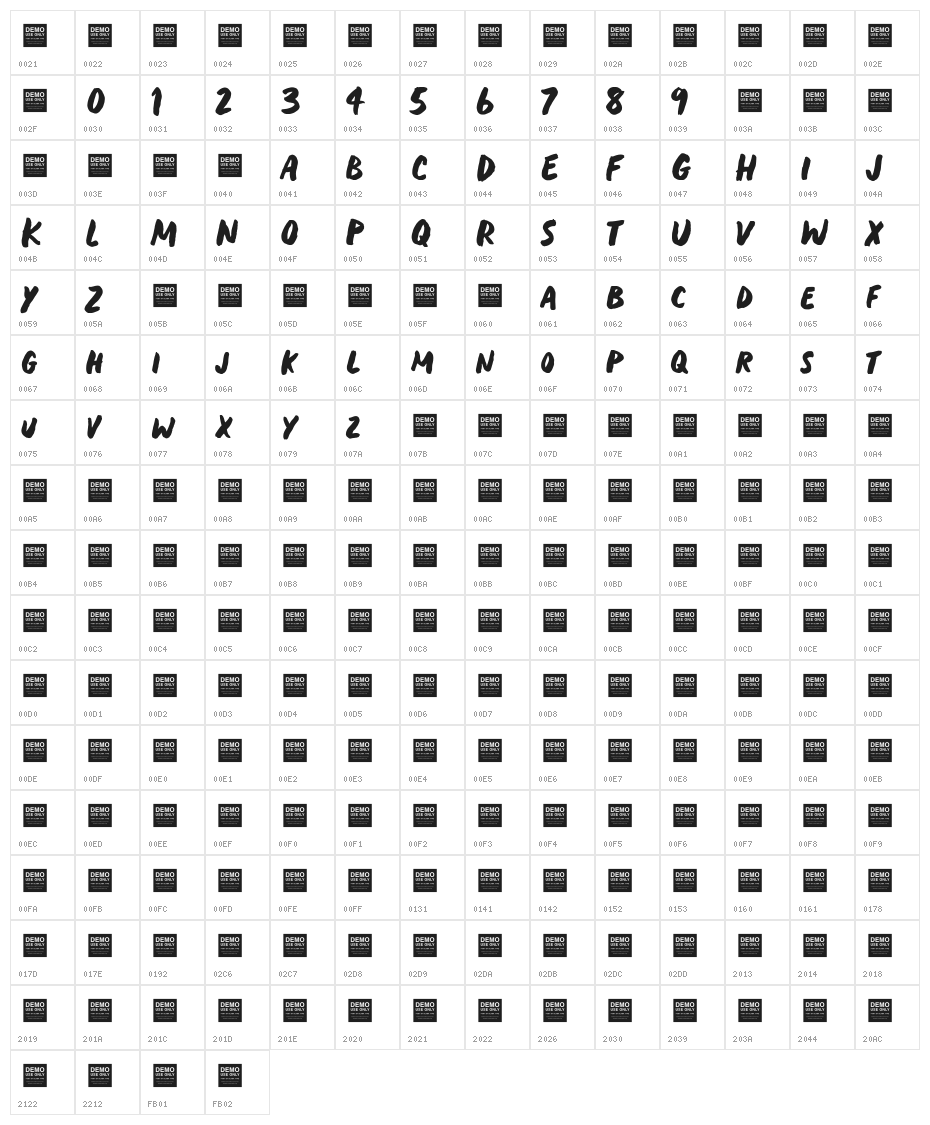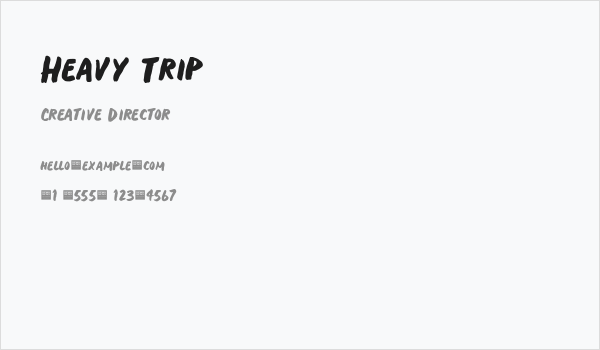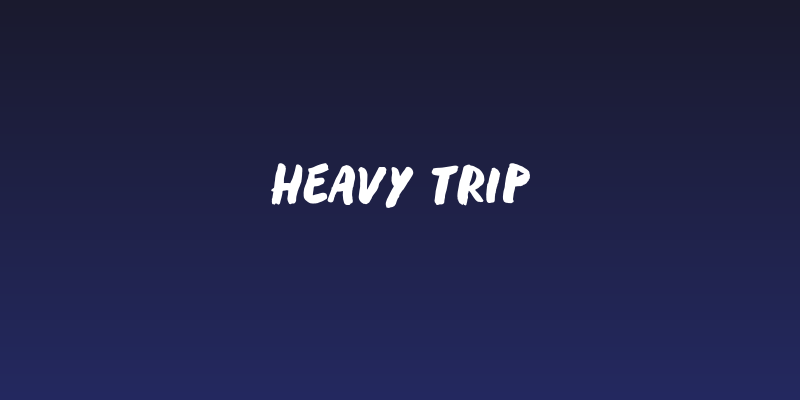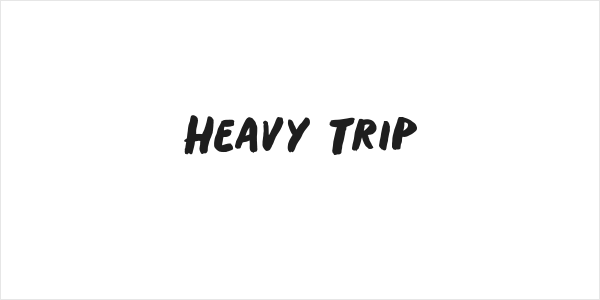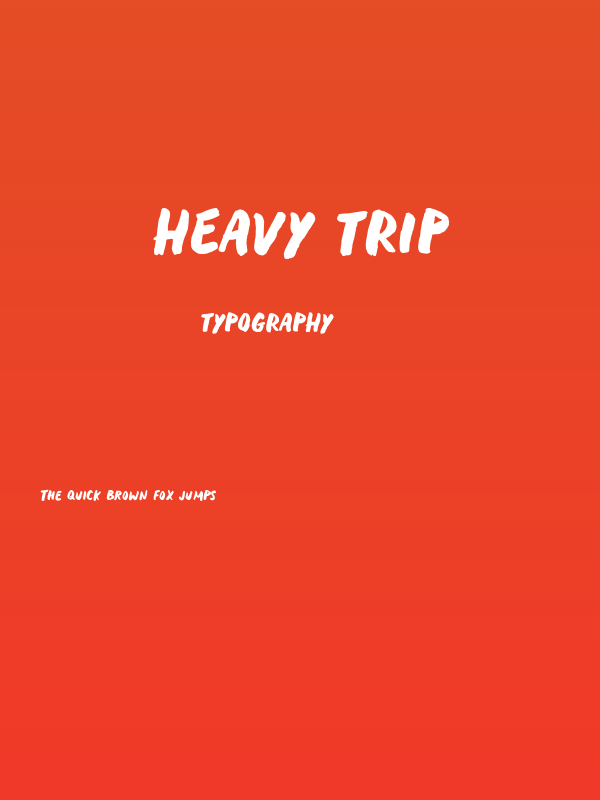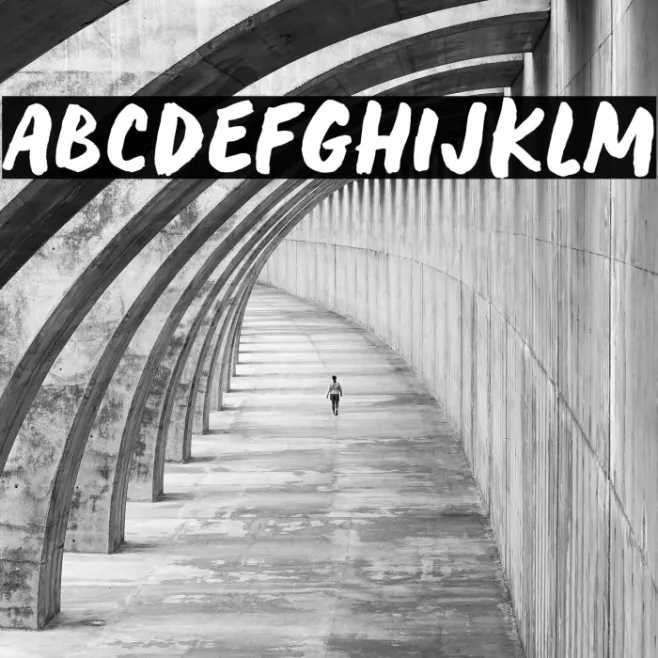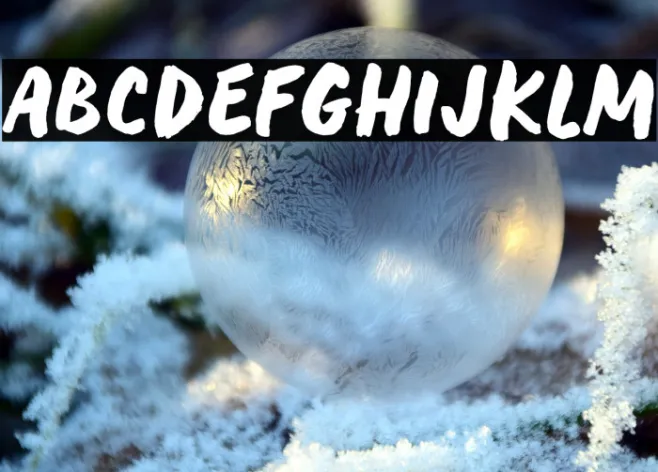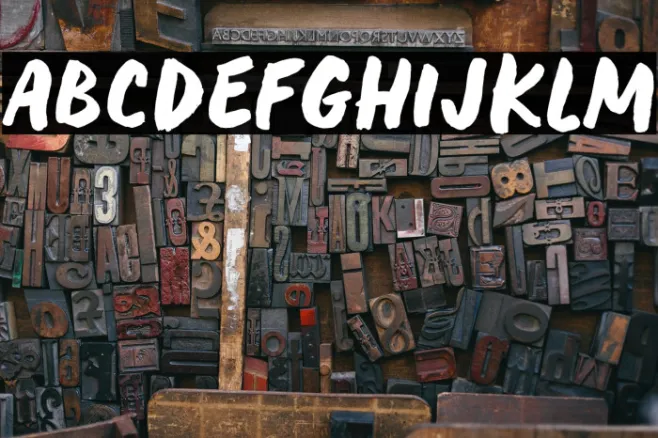
Heavy Trip Font
Heavy Trip Description
This font features bold, expressive strokes that give it a dynamic and energetic appearance. The letters are crafted with a brush-like texture, creating a sense of movement and fluidity. Each character is distinct, with a slightly irregular form that adds to its handcrafted feel. The uppercase and lowercase letters maintain a consistent style, with rounded edges and a slightly condensed form. The numbers are equally bold and maintain the same brush-like quality, ensuring a cohesive look across all characters. This font is perfect for projects that require a strong, impactful visual presence.
| Proposed Projects | Ideal for posters, branding, merchandise, and any design needing a bold, artistic touch. |